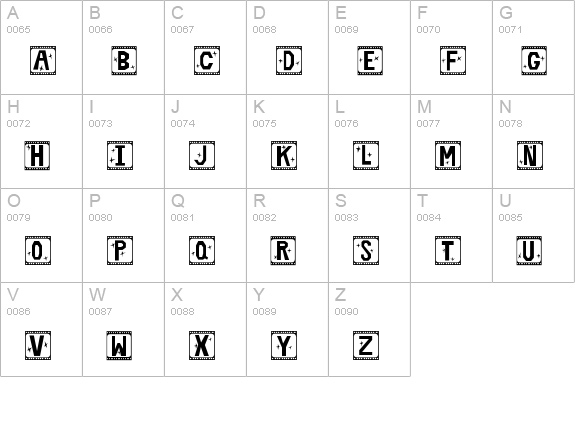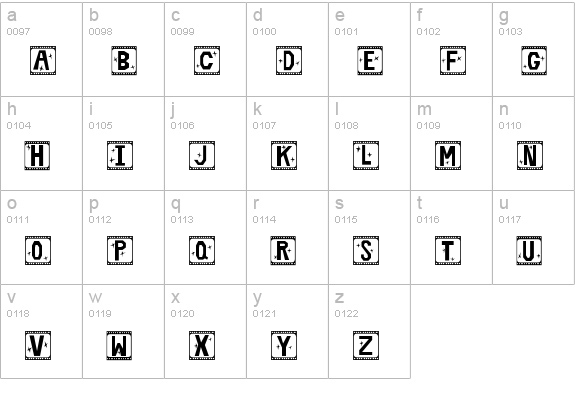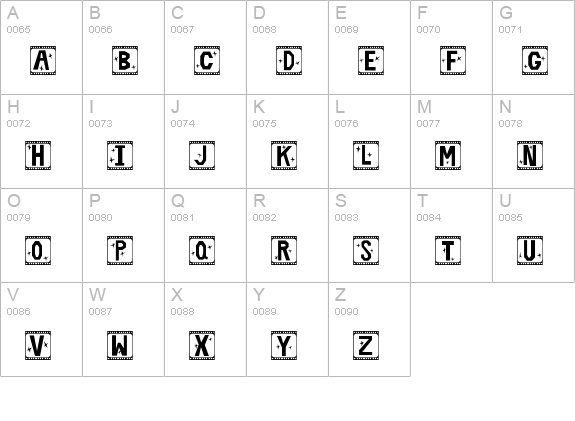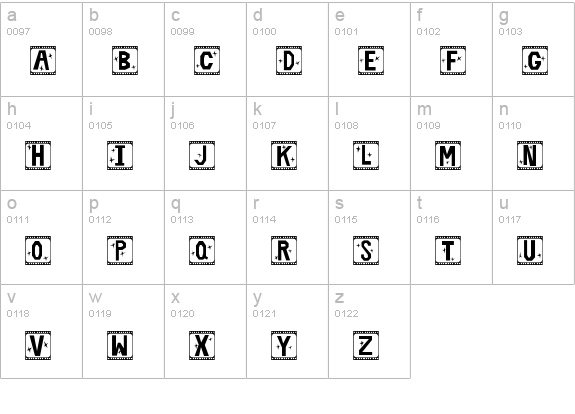
Film Star Font Details
Film Star font is a stylish and elegant typeface that exudes glamour and sophistication. Its sleek lines and classic aesthetic make it the perfect choice for adding a touch of Hollywood glamour to your designs. With its bold, theatrical presence, Film Star font is sure to make a statement and captivate your audience. The best part? Film Star font is available for free download at FontsMarket.com, making it easily accessible for all your creative projects. Whether you're designing movie posters, invitations, or branding materials, Film Star font is a versatile choice that will elevate your work to the next level. Download Film Star font today and bring a touch of old Hollywood charm to your designs.